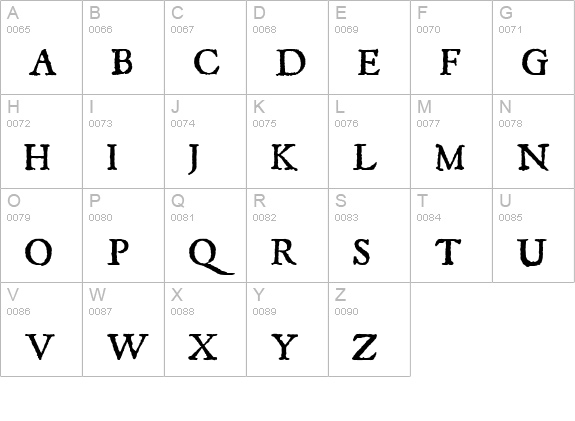
JSL Ancient Font Details
Introducing the magnificent JSL Ancient font, a true gem in the world of typography. This remarkable typeface effortlessly captures the essence of ancient script, taking us back to a time of rich cultural heritage and profound artistic expression. With its intricate details and elegant curves, JSL Ancient is a testament to the craftsmanship of the past. Each letter is meticulously designed to evoke a sense of mystery and intrigue, making it perfect for projects that require a touch of historical authenticity. What sets JSL Ancient apart is not only its mesmerizing aesthetics but also its accessibility. This exceptional font is freely available to download at FontsMarket.com, allowing designers and enthusiasts alike to tap into its captivating allure without any cost. Whether you're working on an archaeological publication, historical branding, or simply want to add a touch of ancient wisdom to your designs, JSL Ancient is the perfect choice. Its versatility and timeless appeal make it suitable for a wide range of projects, while its availability as a free download ensures that anyone can experience its magic. Unleash your creativity and embark on a journey through time with JSL Ancient. Let its enchanting glyphs transport you to ancient civilizations, where stories were written in ink and parchment. Rediscover the beauty of a bygone era with this extraordinary font, freely accessible at FontsMarket.com, where the past meets the present in a harmonious blend of artistry and technology.